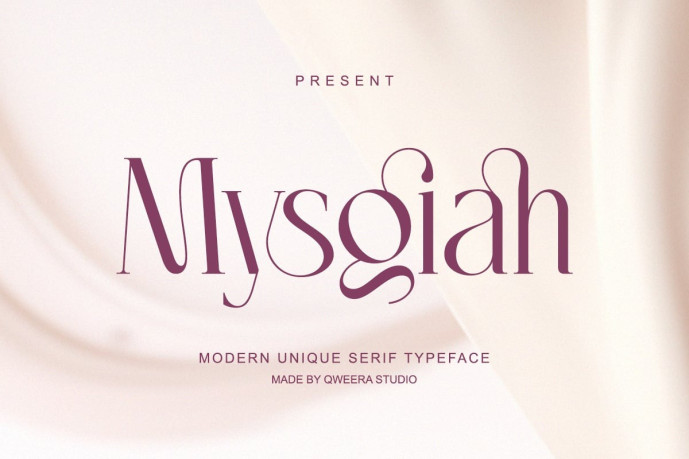
Mysgiah – Modern Serif Font
Designer: IdhhamCholid
Mysgiah – Modern Serif Font that blends contemporary sophistication with subtle feminine energy. Its refined curves and stylish ligatures bring a luxurious softness to branding, fashion magazines, packaging, and wedding stationery. Mysgiah redefines elegance for the modern creative.
Features:
• Regular & Italic
• Alternates & Ligatures
• Uppercase & Lowercase
• Multilingual Support
Perfect For:
Branding, wedding design, packaging, social templates, and editorial headlines.